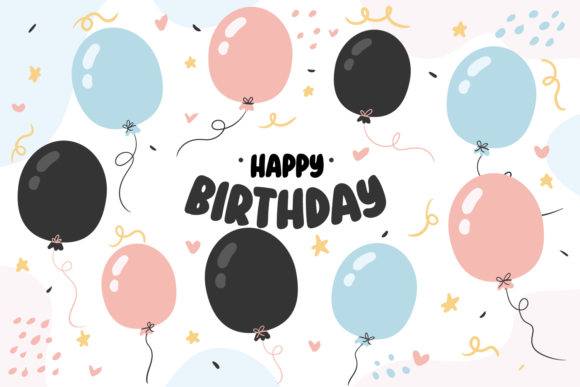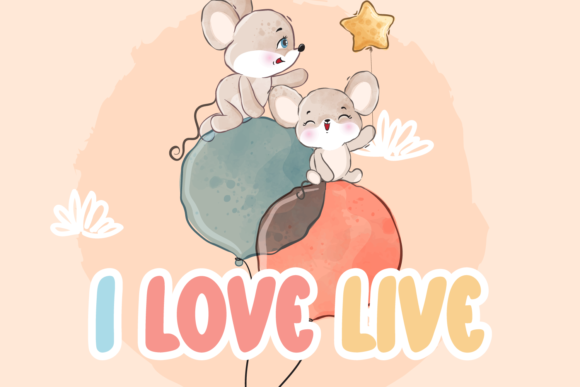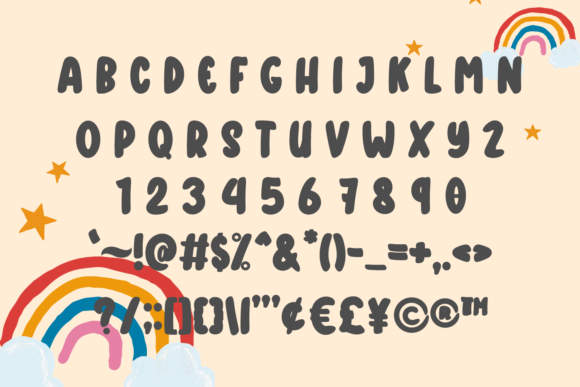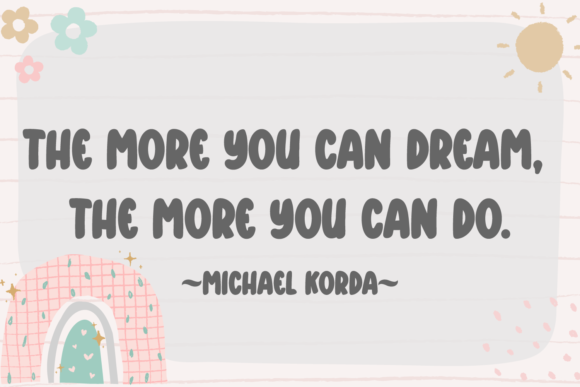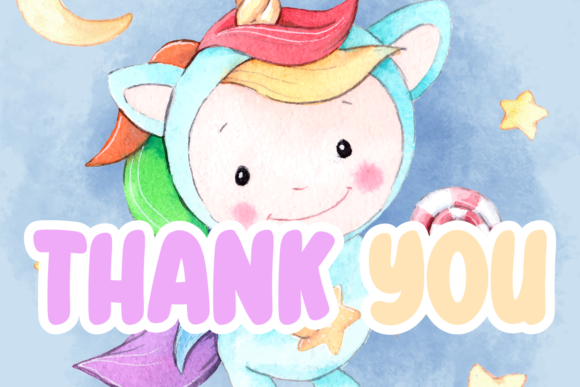
The Perfect Pop of Personality: Balloon Bold Font
You know that moment when you’re brainstorming ideas for a project and suddenly a spark of creativity hits you? For designers, it’s that instant when the perfect font comes to mind, elevating the entire design to the next level. For me, that moment often involves a dash of playfulness and a pinch of whimsy. And that’s exactly where Balloon Bold Font comes in – a charming, friendly, and fun display font that’s sure to bring a smile to your face.
Balloon Bold Font is more than just a pretty face; it’s a versatile tool for designers looking to add a pop of personality to their projects. Whether you’re crafting a logo, designing a presentation, or creating greeting cards, this font has the potential to become your go-to companion for any occasion. Its value lies in its ability to evoke emotions and create a connection with your audience, making it an essential addition to any designer’s toolkit.
- Unique Characteristics: Distinctive rounded edges and smooth curves, ideal for creating visually appealing headings and titles
Designer Review: Balloon Bold Font
At first glance, I was immediately drawn to the playful and eye-catching ✨ Balloon Bold Font! It’s a font that’s hard to ignore, perfect for making a statement in any design project.
- Unique Character: The font’s distinctive shape and letterforms make it instantly recognizable and memorable.
- Perfect for Titles: Its bold and playful nature makes it ideal for use in titles, headings, and other attention-grabbing elements.
- Wide Compatibility: The font is available in a range of weights and styles, making it versatile for use in various design contexts.
- ⚠️ Overused: The font’s popularity has led to overuse in some design projects, which can make it feel cliché and less impactful.
- ⚠️ Limited Legibility: At smaller font sizes, the font’s bold lines and rounded edges can make it difficult to read.
While the Balloon Bold Font is a fun and eye-catching addition to any design project, its limitations mean it’s best used in moderation. When used thoughtfully, it can add a playful touch to your designs. However, it’s essential to balance its use with other fonts to avoid overusing it and maintain visual interest.
Alternatives to Balloon Bold Font
When searching for a font similar to Balloon Bold, designers often look for alternatives that offer a similar feel and style. Here are a few options to consider.
Cream Soda Font is a modern, bold sans-serif font that is reminiscent of the classic look of Balloon Bold. It features a rounded design with a bold weight, making it perfect for headings and titles. Use Cream Soda Font when you need a font that is both stylish and easy to read. It is a great option for designers who want a font that is similar to Balloon Bold but with a more modern twist.
Comparison: Cream Soda Font has a slightly more rounded design than Balloon Bold, but it maintains a similar bold weight.
Beaufort Font
Beaufort Font is a vintage-inspired font that features a bold, condensed design. It is perfect for designers who want a font that has a classic feel but with a more modern twist. Use Beaufort Font when you need a font that is both stylish and versatile. It is a great option for designers who want a font that is similar to Balloon Bold but with a more vintage feel.
Comparison: Beaufort Font has a more condensed design than Balloon Bold, but it maintains a similar bold weight and classic feel.